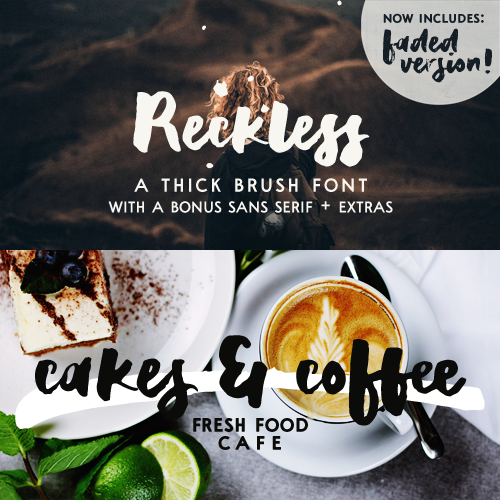
Reckless is a thick brush font, with: - A-Z, a-z, 0-9, accents, punctuation and symbols - Ligatures - Bonus! sans serif font - Bonus! set of splatters and swashes Try it out for free (for private use) with this sample version! For the full public/commercial version, please visit one of these links: https://www.anasfonts.com/ https://creativemarket.com/justlikethistrain?u=justlikethistrain http://www.revolge.com/shop/anas-fonts/ https://www.fontspring.com/foundry/anas-fonts https://thehungryjpeg.com/anas-fonts/ |